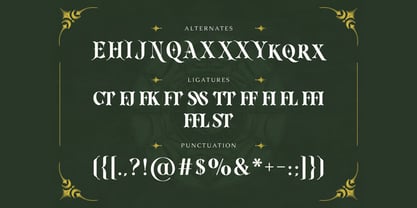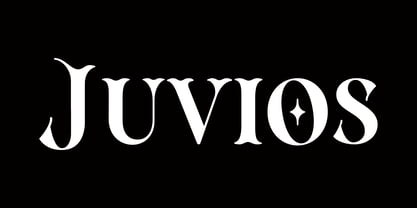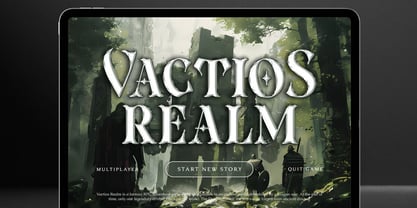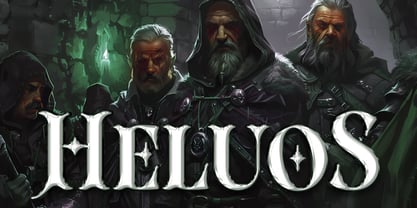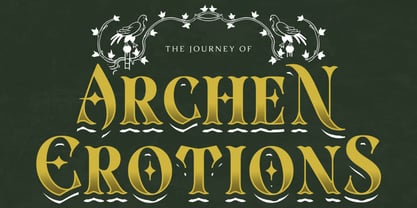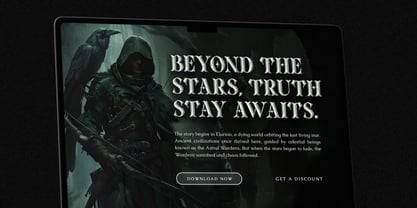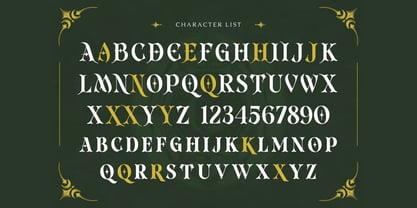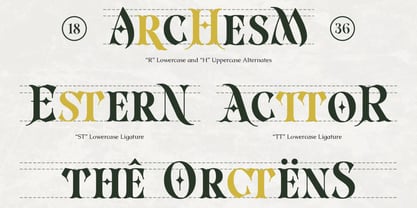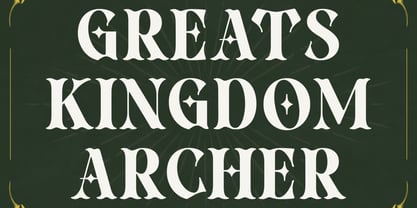
Juvios
The Juvios Font Family was designed by Hasnat Khan and published by Hasnat Studio. Juvios contains 1 styles. More about this family
Juvios is a classic magical fantasy serif font that beautifully blends historical elegance with modern fantasy aesthetics. Designed as a high-impact display typeface, Juvios captures the essence of luxury, royalty, and enchantment, making it perfect for projects that demand a strong visual identity with a mystical and memorable presence.
With its refined serif structure and cinematic character, Juvios brings a sense of grandeur and storytelling to every design. Whether you're crafting fantasy game interfaces, movie titles, book covers, or premium branding visuals, this font delivers a powerful and immersive typographic experience that instantly captures attention.
Ideal for creative projects that require drama, elegance, and imagination, Juvios ensures your designs stand out with authority, sophistication, and magical detail.
✿ Key Features:
• Fantasy Serif Display Design: Inspired by classic and magical storytelling aesthetics.
• Elegant & Royal Style: Perfect blend of luxury, history, and fantasy influence.
• High-Impact Letterforms: Designed for bold headlines and cinematic visuals.
• Uppercase & Lowercase Characters: Complete alphabet for versatile design use.
• Numbers & Punctuation: Essential characters for professional typography.
• Cinematic Typography Style: Ideal for immersive and dramatic visual storytelling.
✿ Perfect For:
• Fantasy Game Design: Ideal for UI, titles, and immersive game branding.
• Movie Titles & Posters: Create cinematic and enchanting visual identities.
• Book Covers & Novel Design: Perfect for fantasy, adventure, and historical fiction.
• Luxury Branding & Logos: Add a royal and sophisticated touch to brand identities.
• Advertising & Promotional Campaigns: Capture attention with magical typography.
• Editorial & Creative Projects: Enhance storytelling with elegant display text.
• Social Media & Digital Art: Create striking fantasy-themed visuals.
Step into a world of imagination with Juvios—a magical fantasy serif font designed for game titles, movie posters, book covers, branding, logos, and immersive creative experiences.